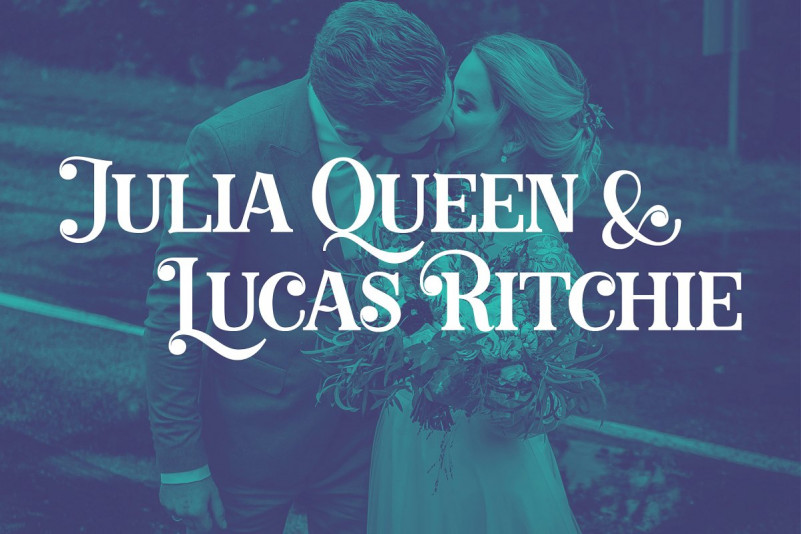
Biago Font Duo
Biago Font Duo – Give your designs more classy. A beautiful combination of serif and handwriting font. Biago designed and shared by Ivan Rosenberg. A lot of stylish alternates will give you a lot of variations for use. As a bonus I attach premium font The Brightside with which they make a great pair – FOR FREE. Biago Serif is great for website headings, posters, restaurants, post cards, magazines and so on. Try to use it in your own business.